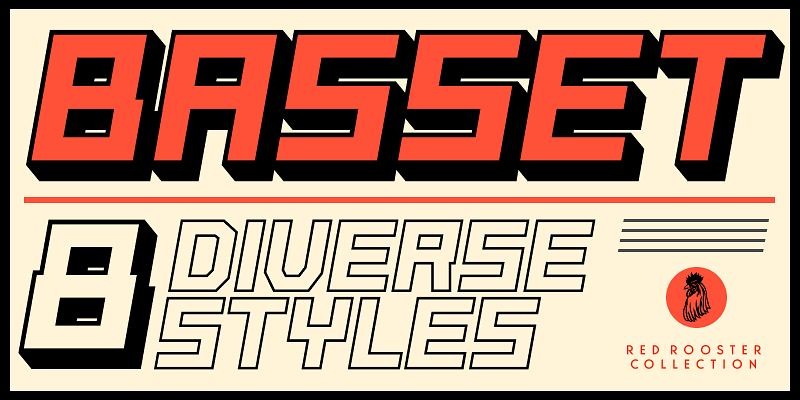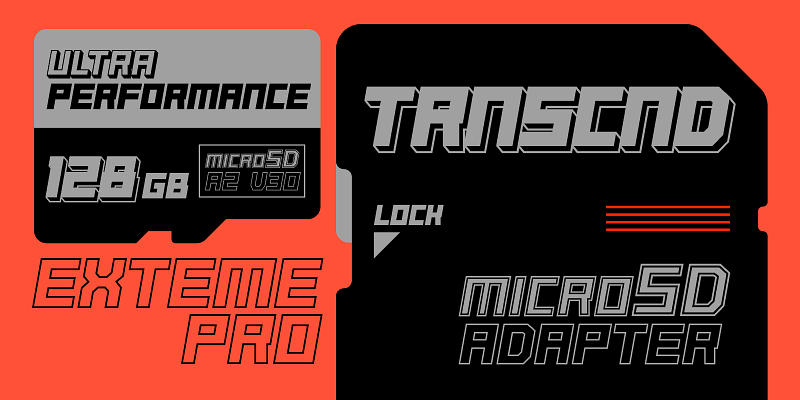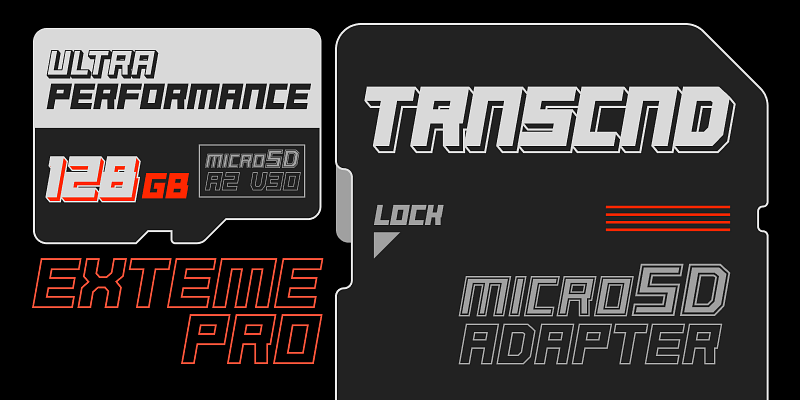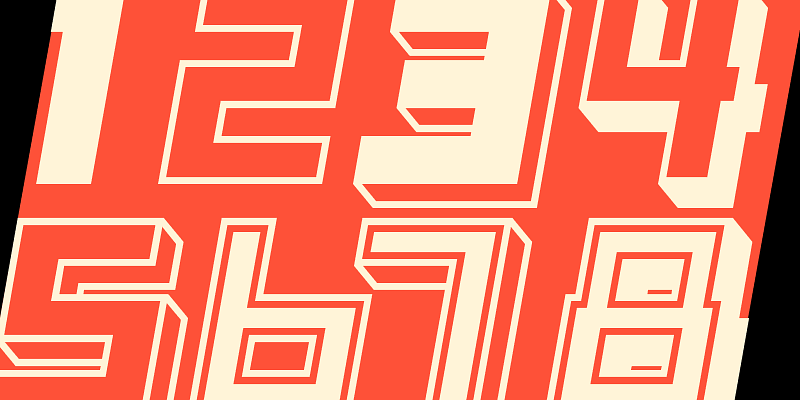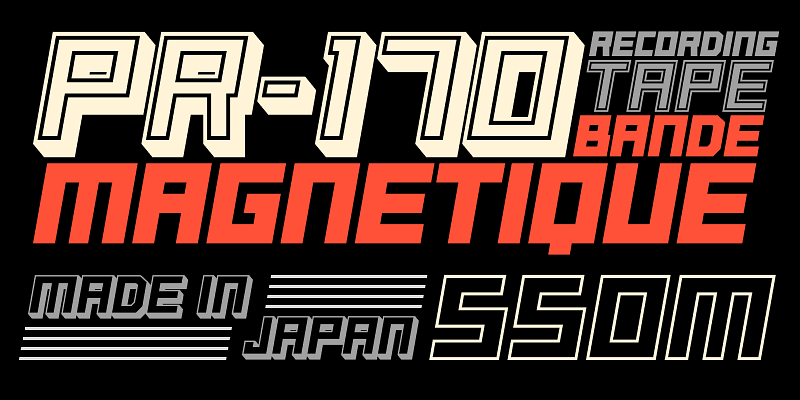
Basset is a blocky all-caps display family designed by Pat Hickson and later redrawn and expanded by Steve Jackaman. With its bold retro-futuristic forms and striking silhouettes, Basset will make a statement at large sizes. The family includes eight styles, each with unique visual energy—from solid and heavy to outlined and layered. Basset is ideal for sci-fi titles, gaming graphics, event branding, bold posters, or anything that demands a loud, attention-grabbing typographic voice.